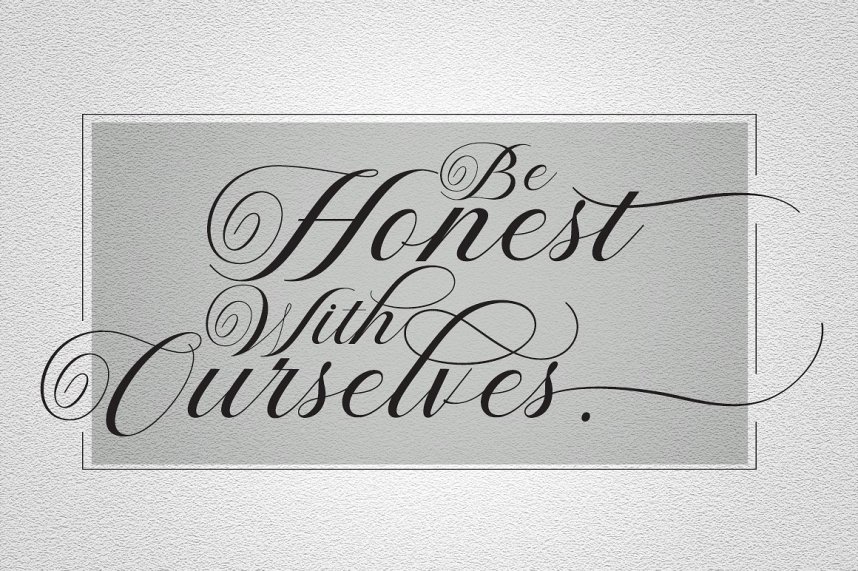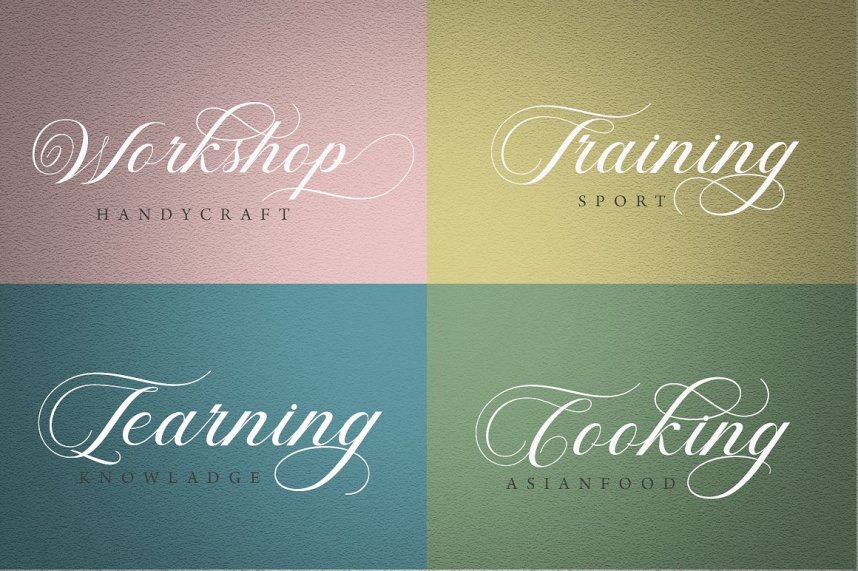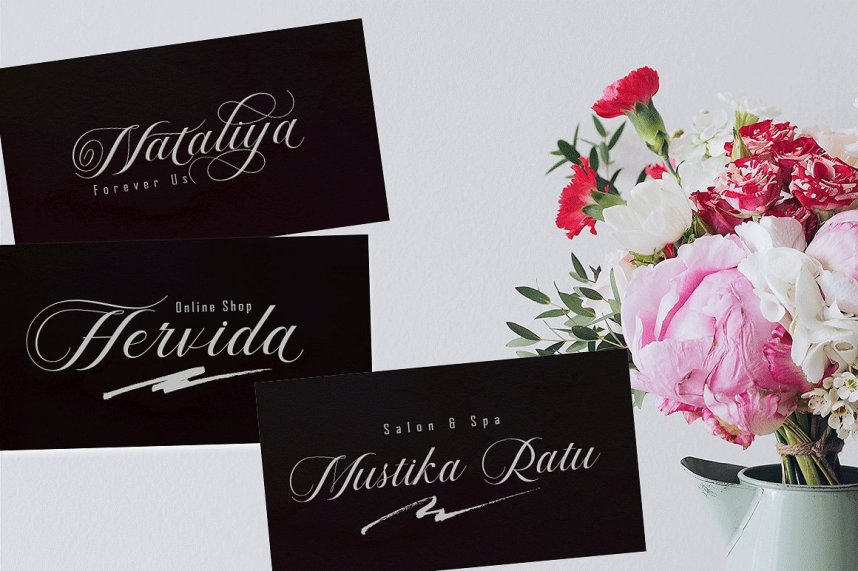
Violeta Script Font
Introducing Violeta! It is designed by GRAPHICPRESS, this is a premium font, are sold on creativemarket, but it was great, it is free today for download. Violeta is another lovely modern calligraphy typefaces, which is combining the style of classic calligraphy with an modern style. combines from copperplate to contemporary typeface with a dancing baseline, modern and elegant touch. Violeta features 500 glyphs and alternate characters Include .